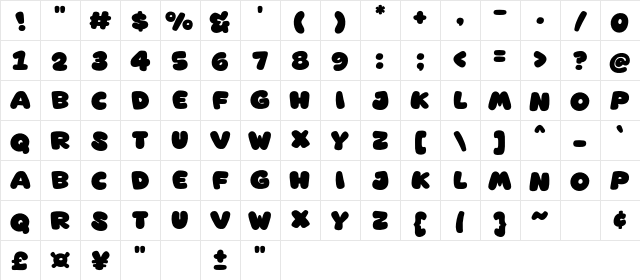
Showtoon Regular
Foundry: Khurasan
Designer: Khurasan
Design Context for Showtoon
Showtoon is a composed and adaptable typeface that performs quietly and consistently across a wide range of design contexts.